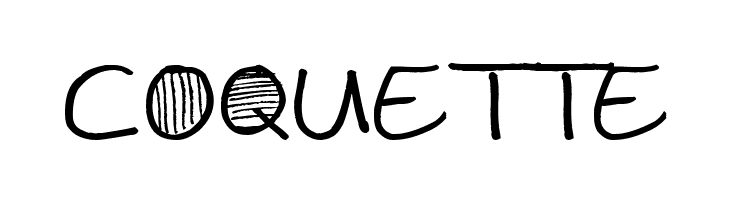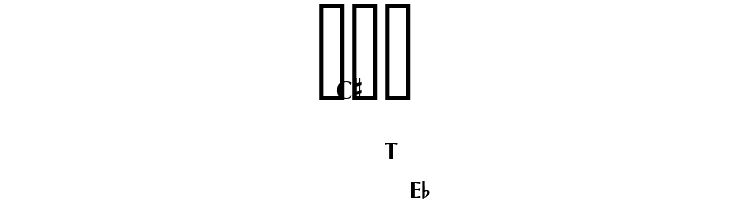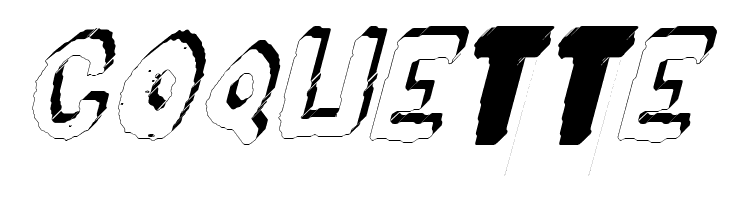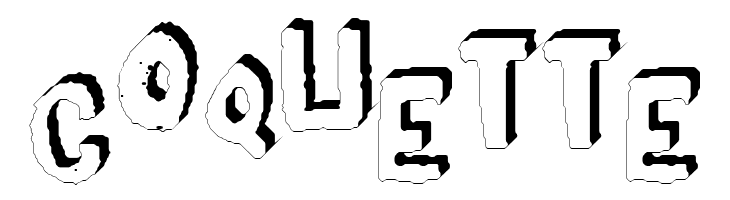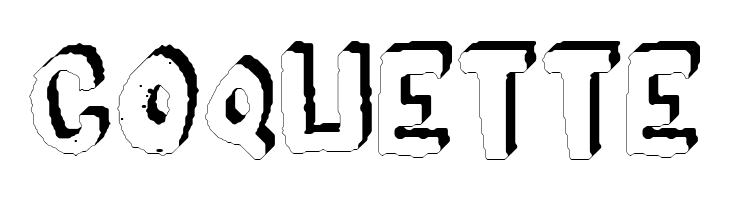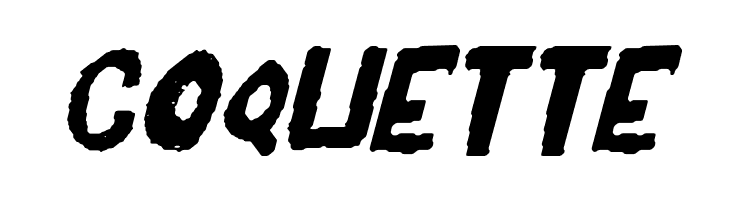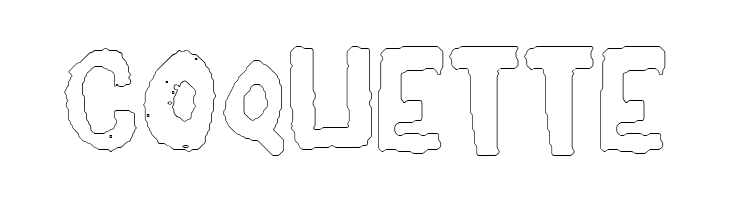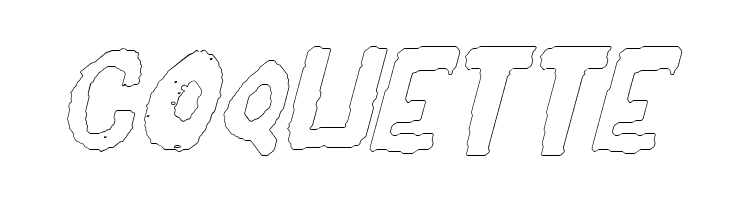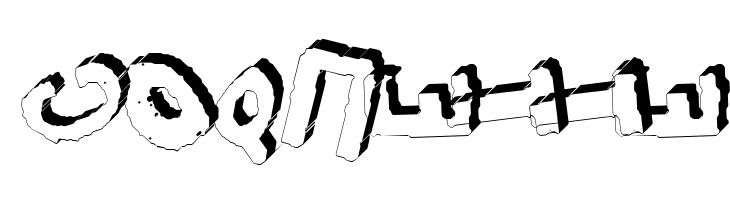
Not a valid font; this is a fingering chart for woodwind instruments.
A modern sans-serif font with geometric shapes and uniform stroke width.
A playful, handwritten font with a casual and creative style.
A bold, 3D font with a playful, hand-drawn style and shadow effects.
A bold, 3D italic font with a modern and dynamic style.
A bold, 3D rotated font with a playful and dynamic style.
A playful 3D font with a hand-drawn, sketch-like style.
A bold, italic font with a brush-like texture and dynamic style.
A playful, bold outline font with a hand-drawn, casual style.
A bold, italic outline font with a modern and dynamic style.